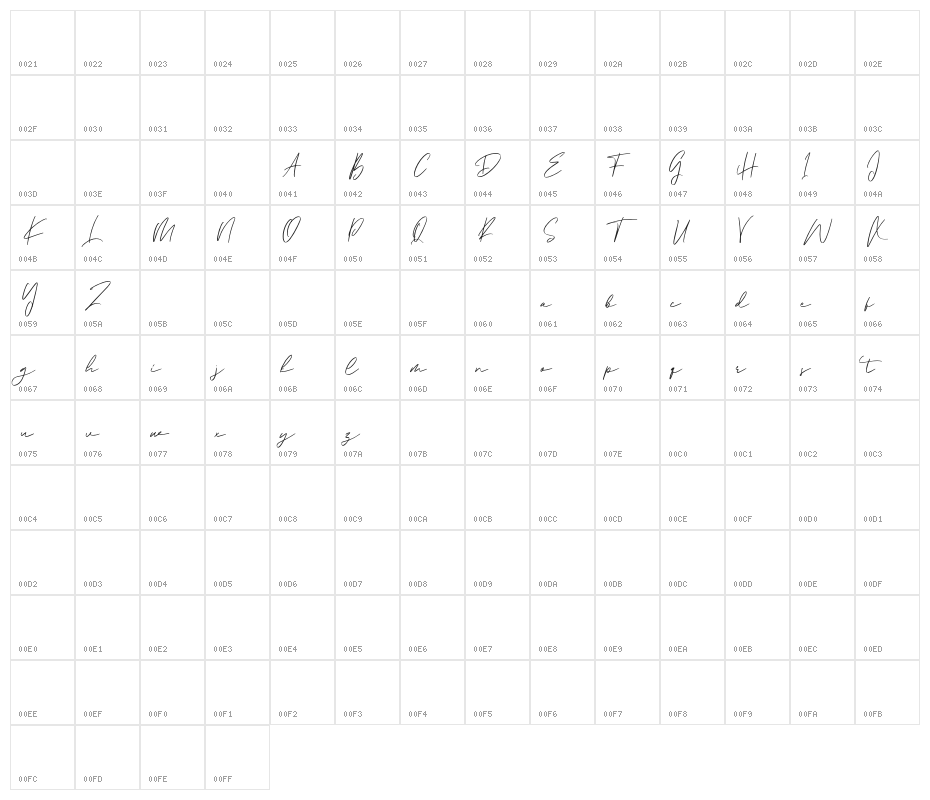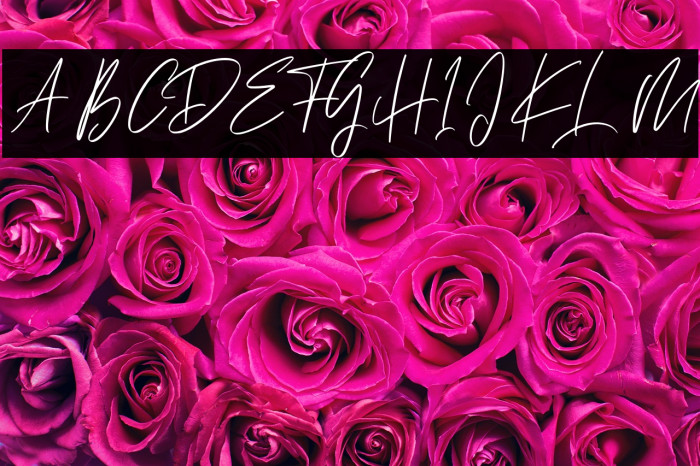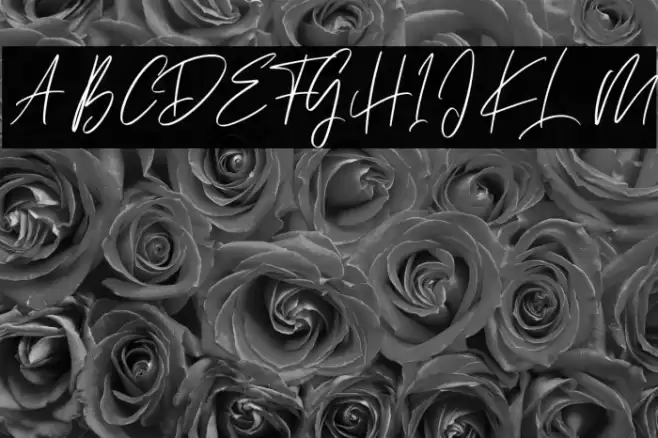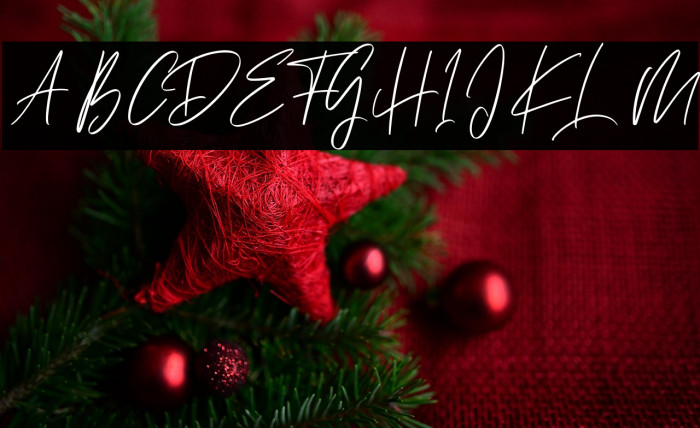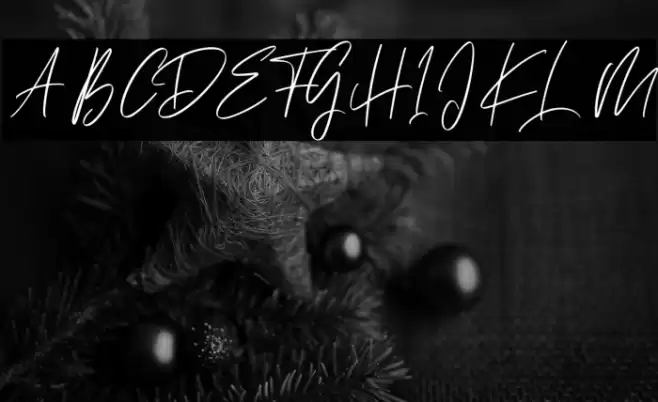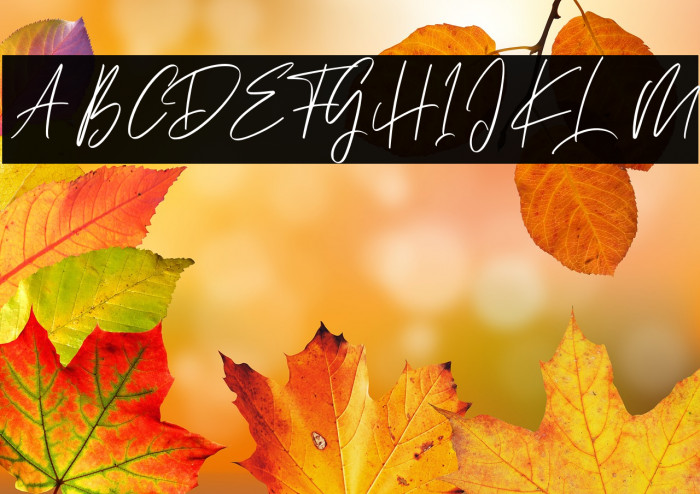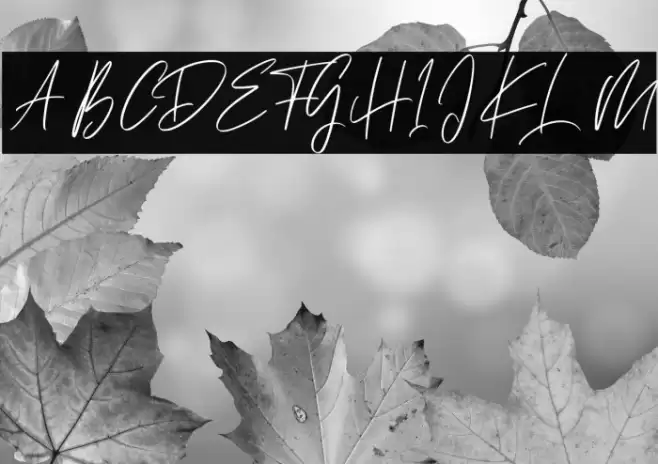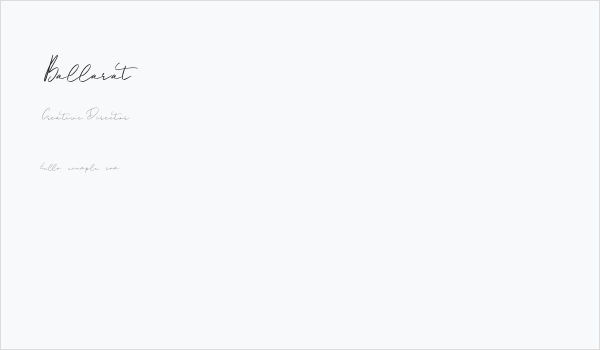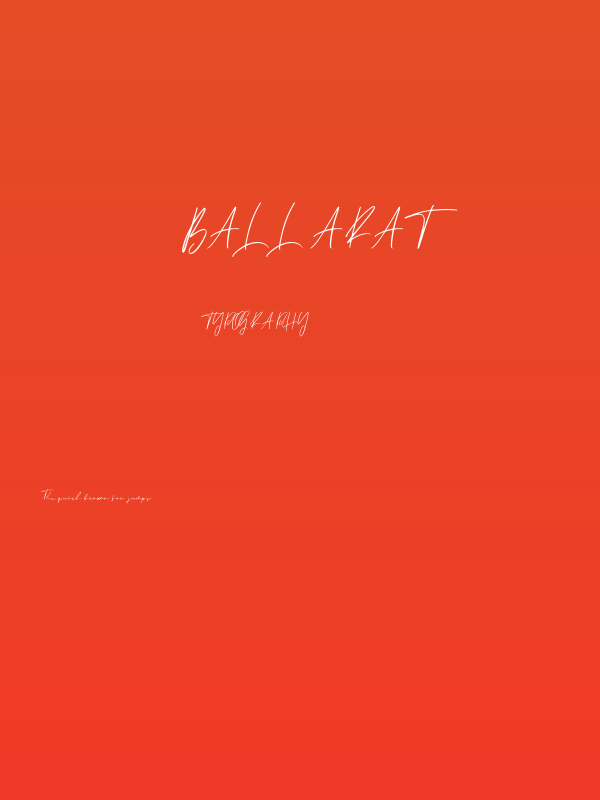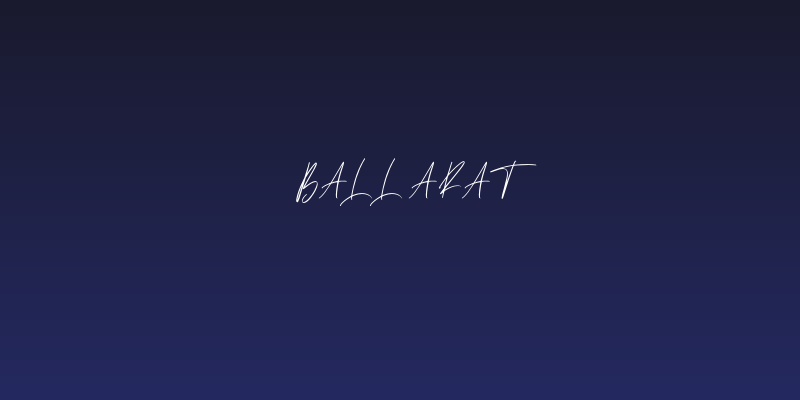
Ballarat Font
Ballarat Description
This font exudes a modern, handwritten style with an elegant and flowing script. The characters are connected in a fluid manner, giving it a natural and personal touch. The uppercase letters are tall and slightly slanted, while the lowercase letters maintain a consistent baseline with gentle curves. The strokes are thin, providing a delicate appearance, yet the overall design remains legible and stylish. The font's playful loops and swashes add a touch of sophistication, making it suitable for creative and expressive projects.
| Proposed Projects | Ideal for wedding invitations, personal branding, greeting cards, and artistic projects. |